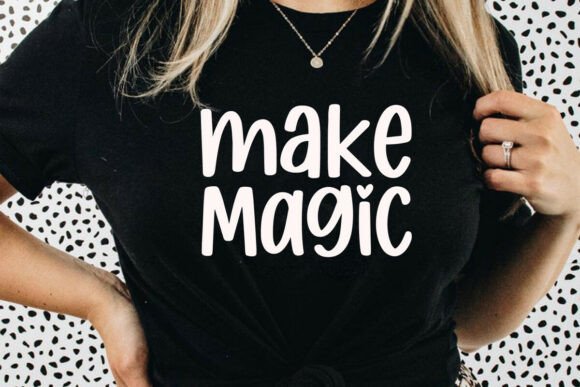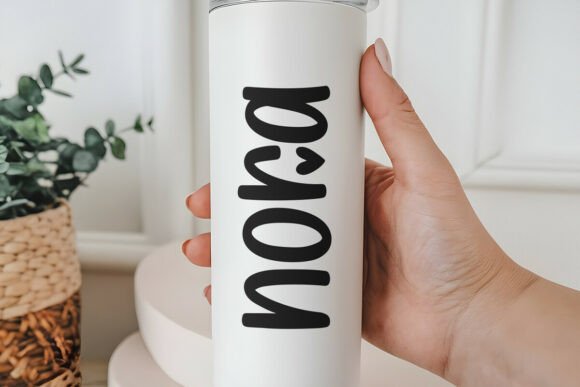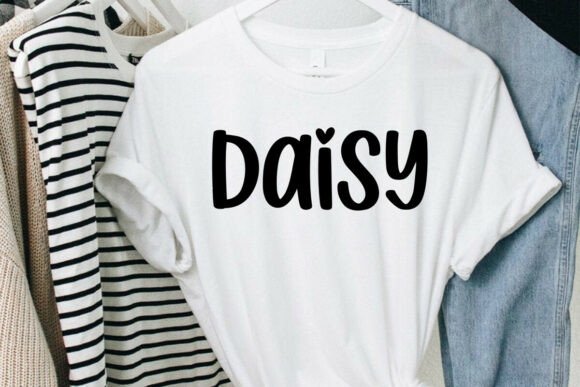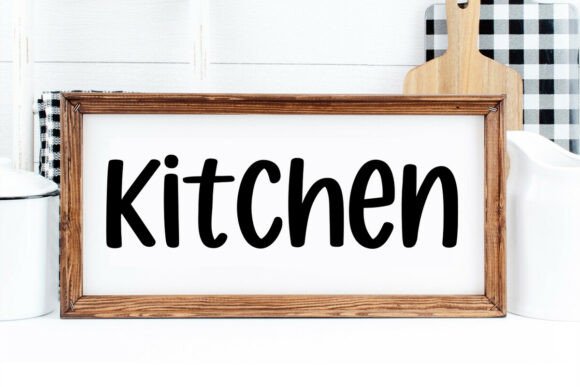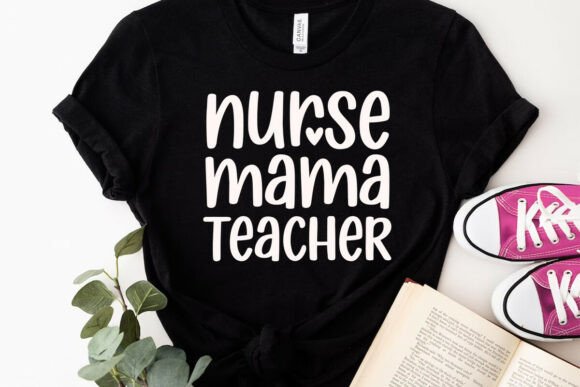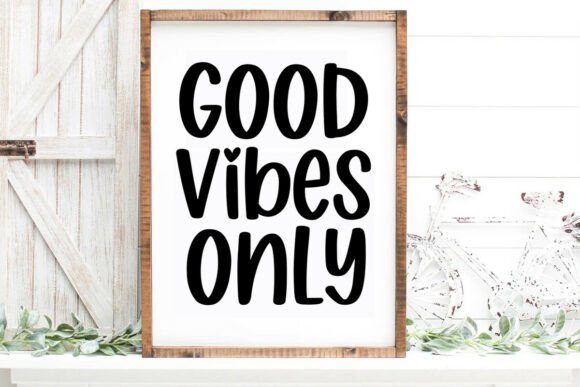
Camila Bryan Font: Elevate Your Designs with a Modern, Stylish, and Flowing Handwritten Heart Font
In the world of typography, fonts play a crucial role in conveying messages, evoking emotions, and creating lasting impressions. For designers, crafters, and creative enthusiasts, finding the perfect font can be a game-changer. If you’re on the hunt for a modern, stylish, and flowing handwritten heart font that can elevate your designs, look no further than Camila Bryan Font. In this article, we’ll dive into the features, benefits, and uses of Camila Bryan Font, and explore how it can bring your creative ideas to life.
What is Camila Bryan Font?
Camila Bryan Font is a beautiful, modern, and stylish handwritten heart font that exudes elegance and sophistication. Designed with love and care, this font boasts well-balanced characters that make it versatile and adaptable to a wide range of designs. Whether you’re working on a logo, branding project, or quote, Camila Bryan Font is the perfect choice to add a touch of personality and whimsy.
Key Features of Camila Bryan Font
- Modern and Stylish: Camila Bryan Font features a fresh, contemporary design that’s perfect for designers and crafters looking for a font that’s both trendy and timeless.
- Flowing Handwritten Style: The font’s flowing handwritten style gives it a personal and emotive feel, making it ideal for projects that require a touch of warmth and personality.
- Well-Balanced Characters: The font’s characters are carefully crafted to ensure balance and harmony, making it easy to read and visually appealing.
- Versatile: Camila Bryan Font can be used for a wide range of designs, from logos and branding to quotes and social media graphics.
Benefits of Using Camila Bryan Font
So, why choose Camila Bryan Font for your next design project? Here are just a few benefits of using this amazing font:
- Adds Personality to Your Designs: Camila Bryan Font’s unique and stylish design ensures that your projects stand out from the crowd and reflect your personality.
- Enhances Readability: The font’s well-balanced characters and flowing style make it easy to read, even at smaller sizes.
- Saves Time: With Camila Bryan Font, you can create stunning designs in no time, thanks to its versatility and adaptability.
- Perfect for Branding: The font’s modern and stylish design makes it an excellent choice for branding projects, helping you establish a strong visual identity.
Creative Uses for Camila Bryan Font
Camila Bryan Font is an incredibly versatile font that can be used for a wide range of creative projects. Here are some ideas to get you started:
- Logos and Branding: Use Camila Bryan Font to create eye-catching logos and branding materials that reflect your personality and style.
- Quotes and Social Media Graphics: Add a touch of elegance and sophistication to your quotes and social media graphics with this beautiful font.
- Invitations and Stationery: Create stunning invitations, stationery, and greeting cards with Camila Bryan Font’s flowing handwritten style.
- Packaging and Labels: Use the font to add a personal touch to your packaging and labels, making your products stand out on store shelves.
In conclusion, Camila Bryan Font is a modern, stylish, and flowing handwritten heart font that’s perfect for designers, crafters, and creative enthusiasts. With its well-balanced characters, versatile design, and wide range of uses, this font is sure to elevate your designs and bring your creative ideas to life. So, what are you waiting for? Add Camila Bryan Font to your design toolkit today and experience the difference it can make!